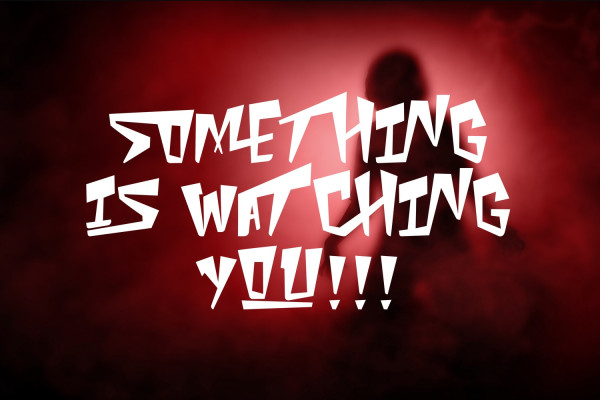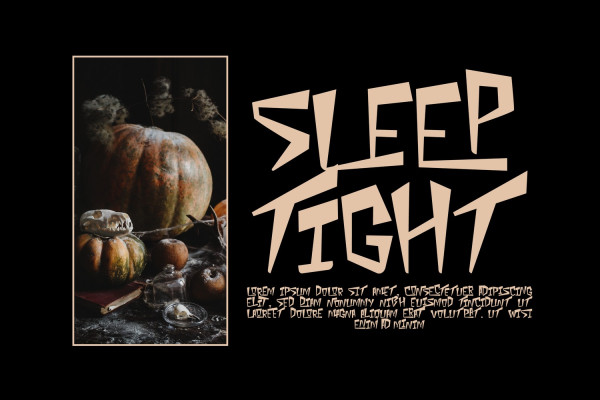
Perfectly Abstract Font
Perfectly Abstract Font is a playful ligature font, child-like typeface. Every word is a puzzle with pieces changing and shifting as you type. hand-drawn display font with plenty of ligatures and stylistic alternatives. Perfect for creating logos, greeting cards, posters, packaging and so much more! Its charming and warm character will help you give your project a truly unique feel.
Perfectly Abstract was built with OpenType features and includes 100 ligatures, alternate, numbers, punctuation, and it also supports other languages.
AC AD AL AN AR AS AT AU AV BE CA CE CH CO CT DE DI EA EC ED EE EL EM EN EP ER ES ET FE FO FR GE HA HE HI HO IE IC IL IN IO IR IS IT JU KE LA LE LI LL LO LY MA ME MI NC ND NE NG NO NT NS OC OF OM ON OO OP OR OT OU OW PA PR RA RD RE RI RO RS RT SE SH SI SO SS ST TA TE TH TI TO TR TT UM UN UR VE WI WO